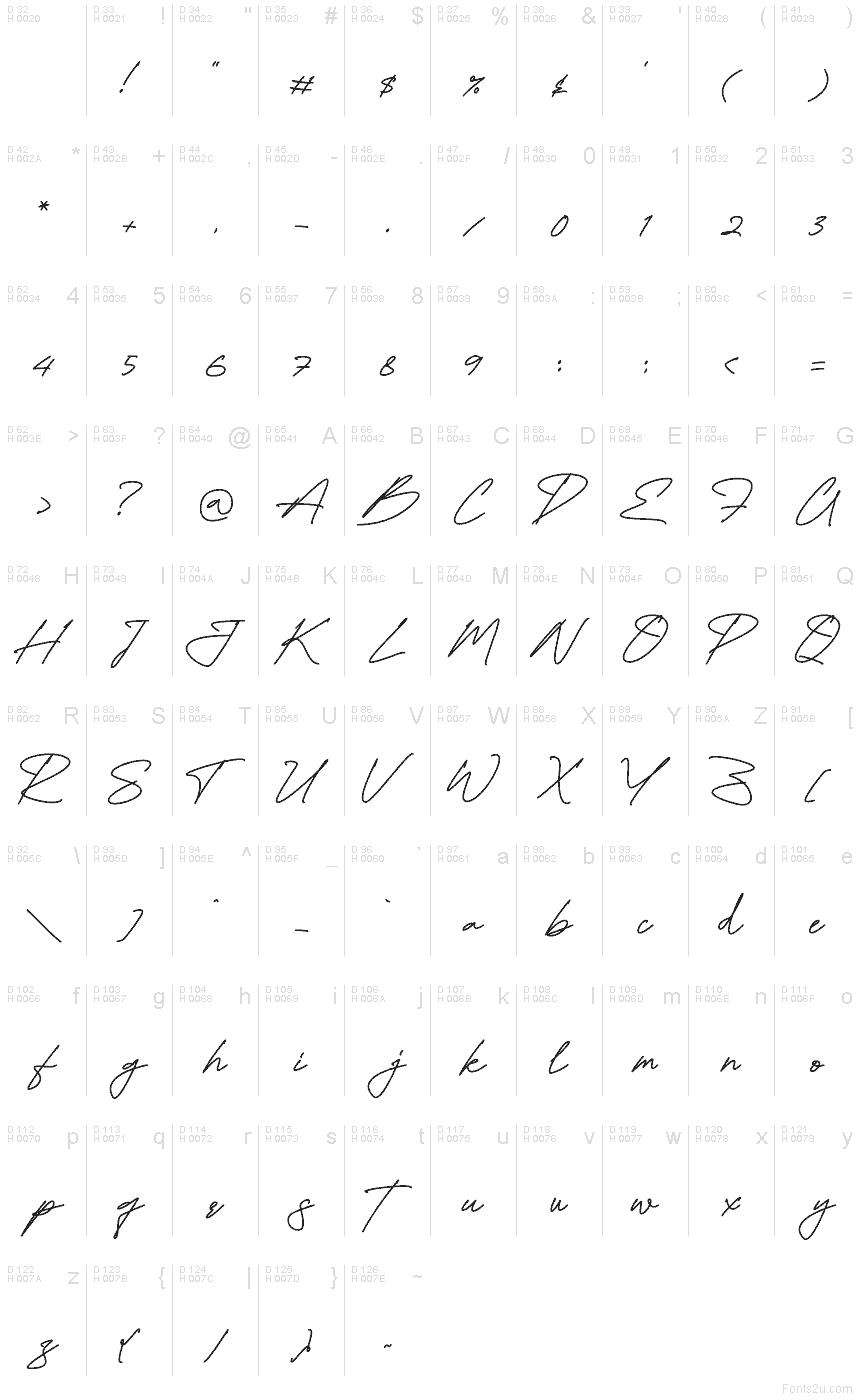
Brittany Signature Demo
Brittany Signature font by Fntyp Std is a free light signature script font. Built for names and marks that need to feel personal, it flows with quick, inky flicks and long, elegant exits. Subtle pressure shifts keep the strokes mostly monoline, while the forward slant and generous rhythm give it that effortless, just-signed energy.
Using Brittany Signature, titles and logos read as intimate and upscale—great for boutique branding, wedding suites, product packaging, beauty headers, photographer watermarks, and social posts. Set it large so the airy loops breathe, and keep tracking snug. This free font also pairs beautifully with a clean geometric sans in small caps for supporting text.